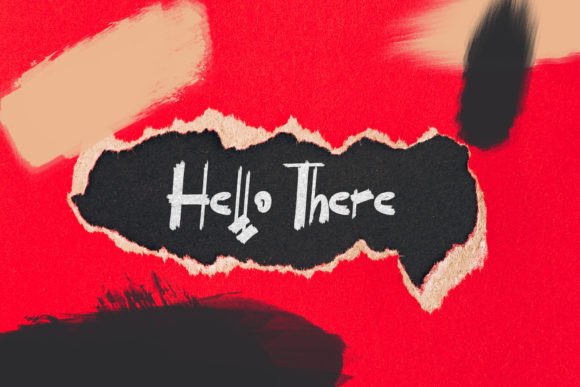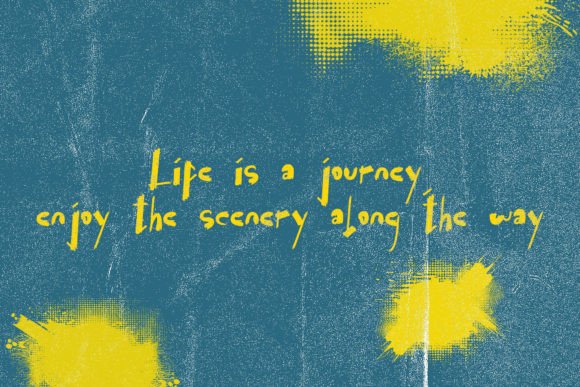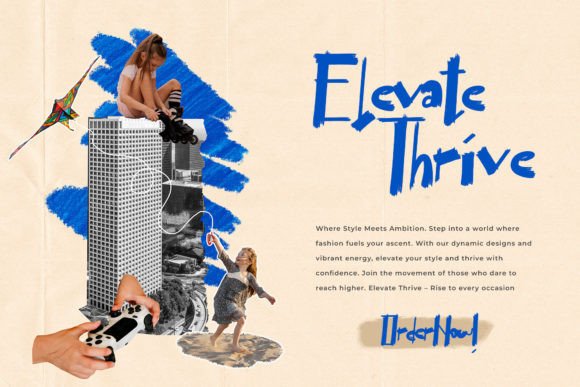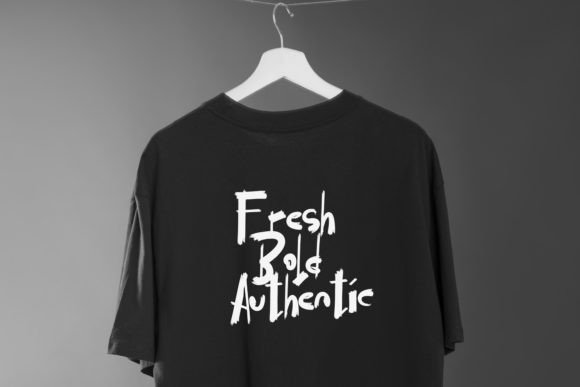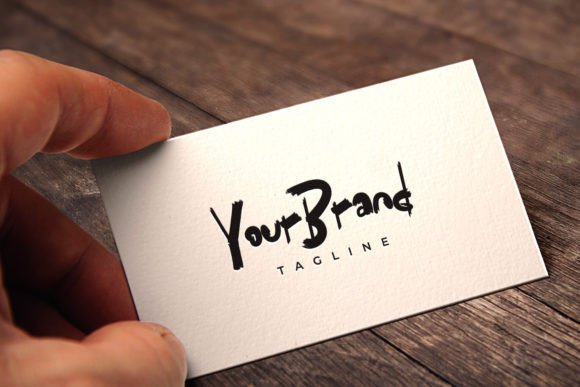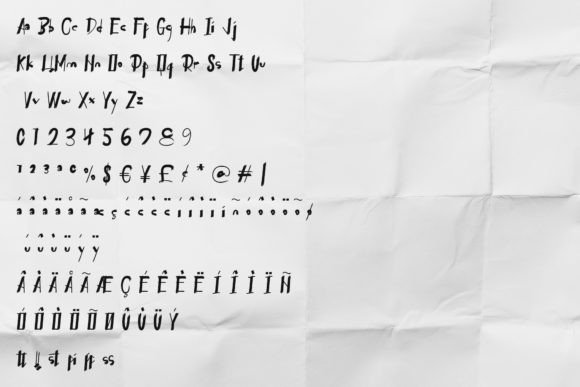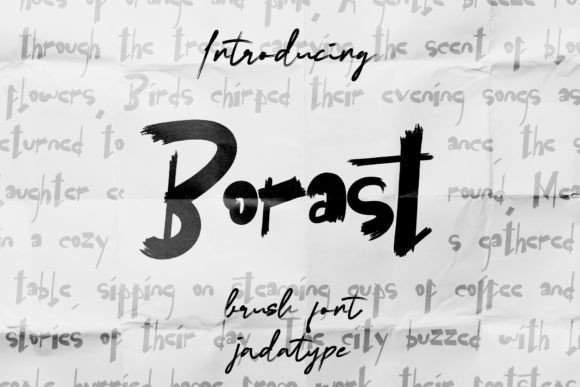
Unlocking the Elegance of Handwritten Typography: A Deep Dive into Borast Font
Have you ever been in the midst of working on a design project, everything is flowing smoothly, and then you hit a roadblock – finding the perfect font? I recall a particular project where my client requested a font that exuded elegance and sophistication, yet had a distinctly personal touch. After scouring through numerous font libraries, I stumbled upon Borast, a stunning brush font that instantly caught my attention. In this article, I’ll share my journey with Borast, its unique features, and how you can leverage its beauty in your designs.
The Borast Advantage: A Personal Review
What I Love About Borast ✨
- ✅ Elegant Brushstrokes: Borast boasts authentic, hand-brushed strokes that give it a unique, personalized feel.
- ✅ Versatility: This font isn’t just limited to elegant designs; with its range of glyphs and alternates, it can adapt to various creative projects.
- ✅ Easy to Read: Despite its elegant and artistic appeal, Borast maintains readability, making it perfect for both headings and body text.
- ✅ OpenType Features: Borast supports OpenType features, allowing for advanced typographic control, including stylistic alternates and ligatures.
While Borast is a fantastic font, there are a few things to keep in mind:
- 🤔 Glyph Overload: With so many glyphs and alternates available, it can be overwhelming to navigate, especially for beginners.
- ⚠️ Not Suitable for All Devices: Due to its intricate design, Borast may not render optimally on all devices or platforms, particularly at smaller font sizes.
The Story Behind Borast: Designer Inspiration
Borast was inspired by the timeless beauty of handwritten typography. Its creator sought to capture the essence of elegant, hand-brushed calligraphy and translate it into a digital font. The goal was to create a font that not only stands out but also brings a personal touch to any design project. Through meticulous crafting, Borast was born – a font that balances sophistication with creativity.
Q: Is Borast suitable for body text?
A: Yes, Borast can be used for body text, especially in creative projects where a personal touch is desired. However, for very long texts or formal documents, a simpler font might be more appropriate.
Q: Is Borast available in different weights or styles?
A: Borast comes in various weights and styles, offering flexibility for different design needs. Check the font package for specific inclusions.